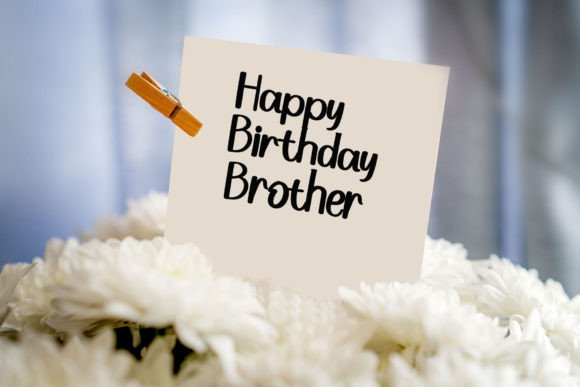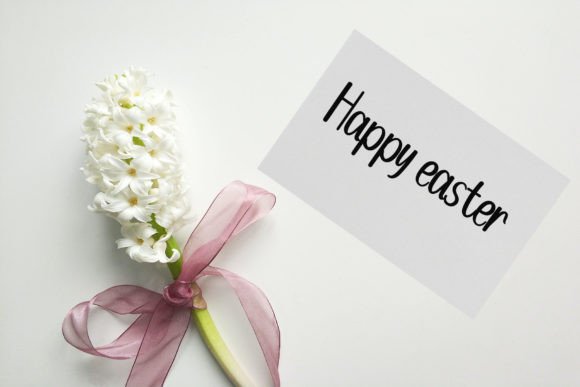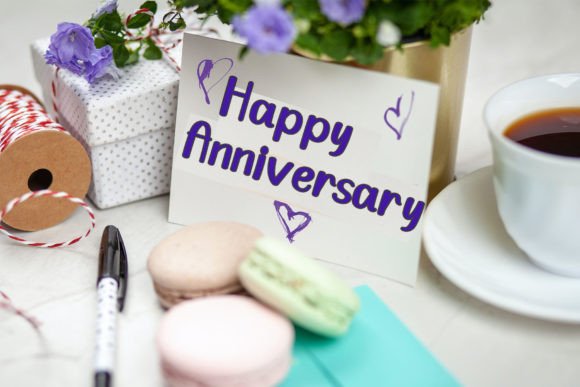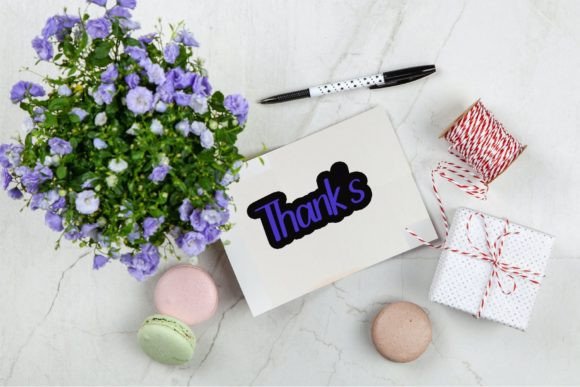
Blessed Font
About Blessed Font
“Blessed” is a trendy handwritten font that combines a contemporary atmosphere with impeccable form, drawing inspiration from timeless classic calligraphy. This font is designed to infuse elegance and class into any of your design projects, making it a versatile choice for various creative needs.
The charm of “Blessed” lies in its blend of contemporary and classic calligraphic influences. Its well-crafted characters create a visually captivating and refined experience, making it an ideal choice for projects that aim to convey a sense of modern elegance and timeless sophistication.
One of the standout qualities of “Blessed” is its versatility. Whether you’re using it for branding, designing elegant invitations, crafting memorable quotes, enhancing greeting cards, or working on various other creative projects, “Blessed” seamlessly integrates into your creative vision.
This font’s dedication to providing elegance and class sets it apart. Whether you’re working on personal or professional endeavors, “Blessed” brings a sense of refinement and sophistication to your work that resonates with a diverse audience.
In summary, “Blessed” is more than just a font; it’s a trendy and elegant creative tool that can elevate your projects. Whether you’re a professional designer seeking a font with a contemporary yet classic touch or an enthusiast passionate about crafting and design, “Blessed” is here to make your designs shine with its impeccable form and timeless style. Embrace the elegance of “Blessed,” and watch your creativity flourish with sophistication and class.